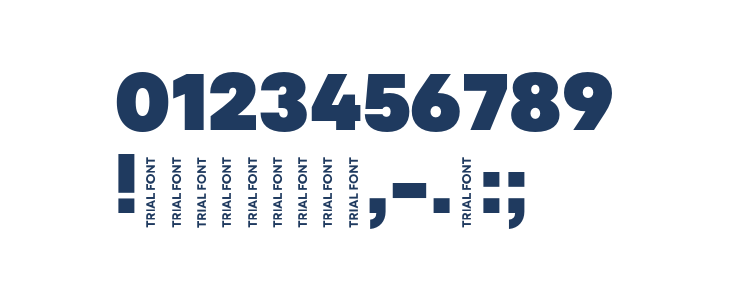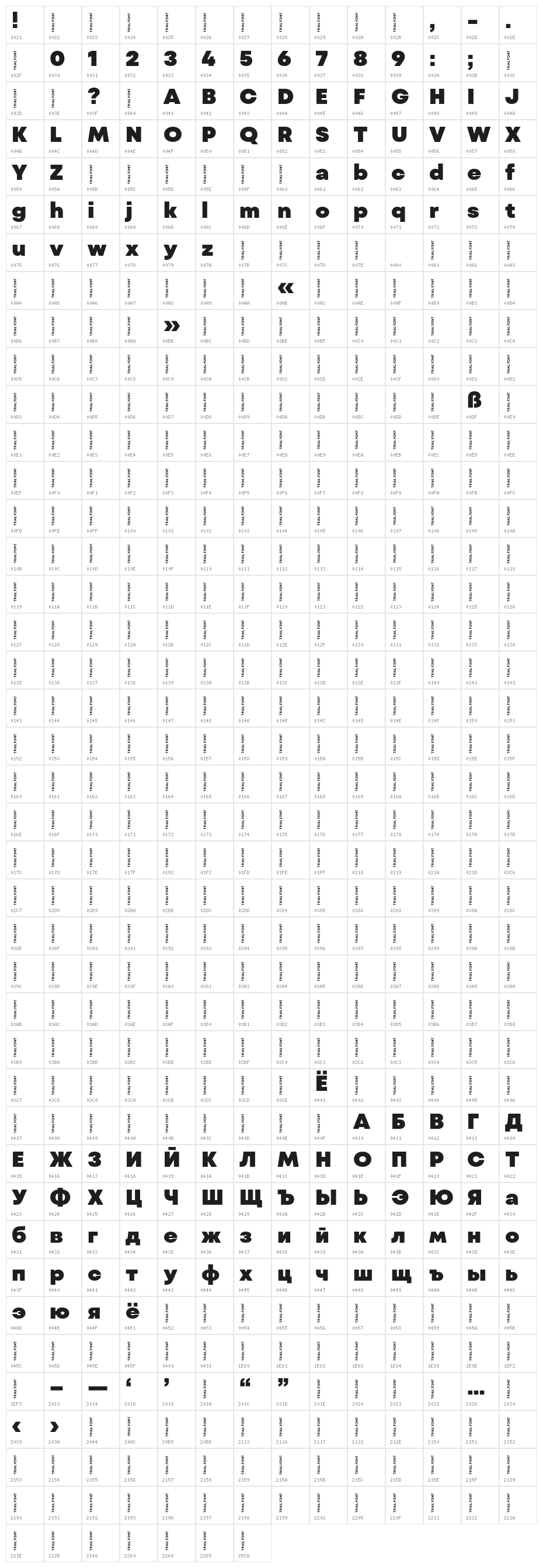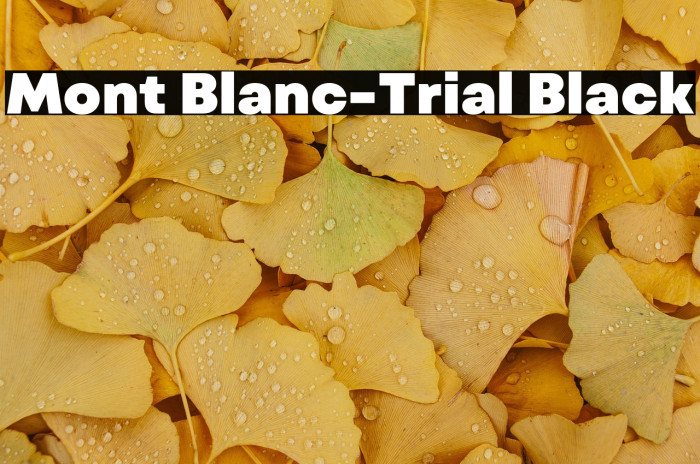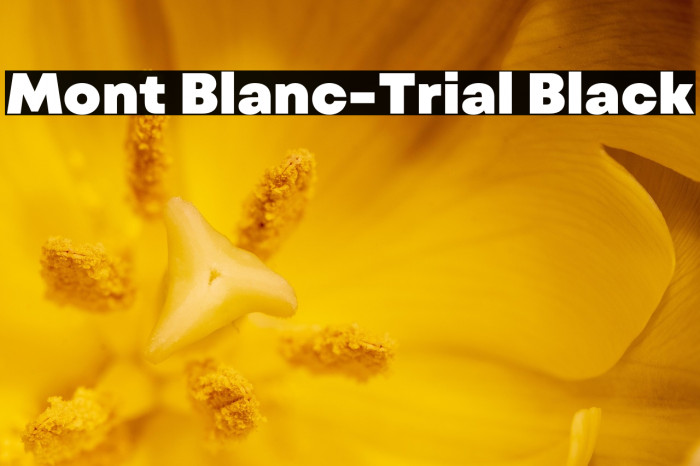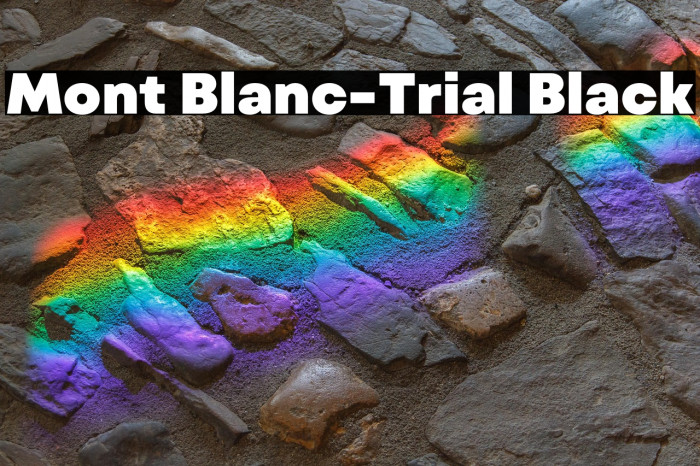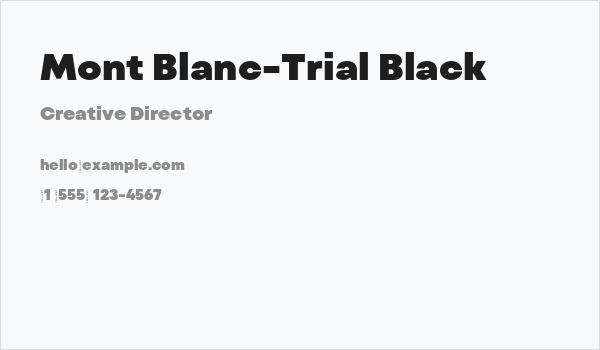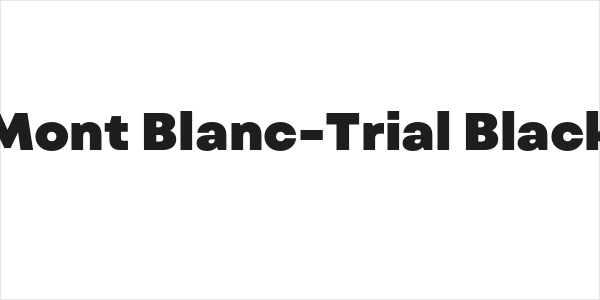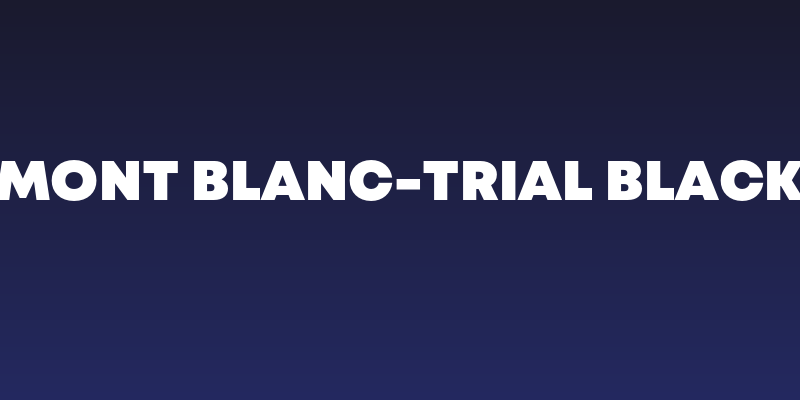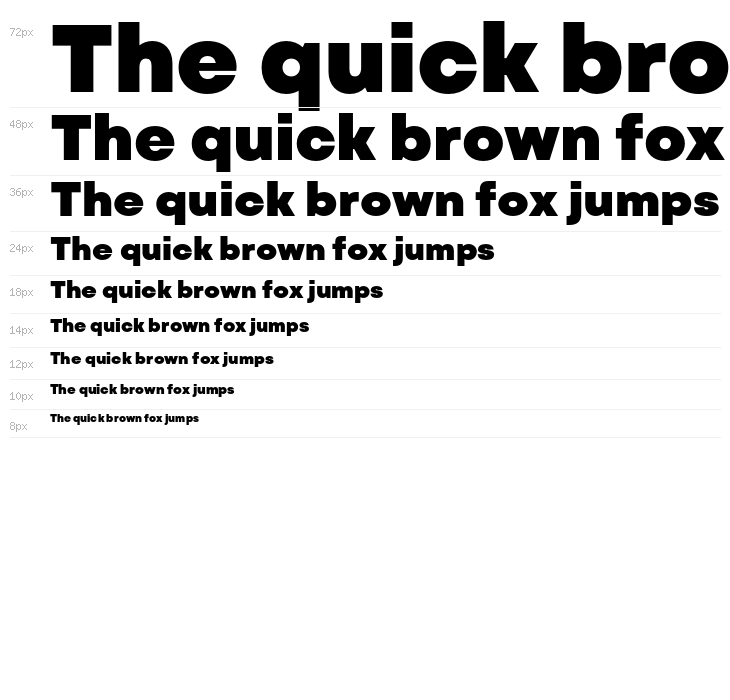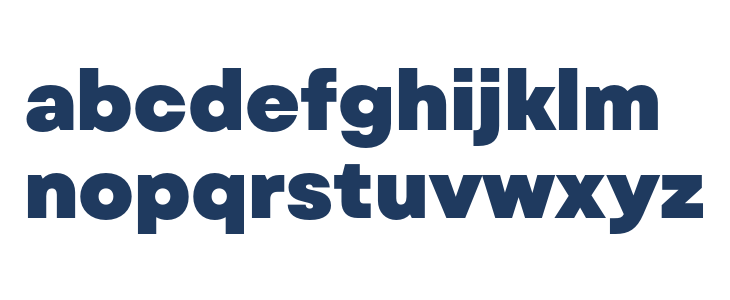
Mont Blanc-Trial Black Font
Mont Blanc-Trial Black Description
This font features a bold and modern sans-serif style with clean, geometric lines and uniform stroke widths. The uppercase and lowercase letters are well-proportioned, offering a strong visual impact. The numerals are clear and easily distinguishable, making them suitable for various applications. Special characters are designed with the same boldness, ensuring consistency throughout the typeface. The overall appearance is sleek and contemporary, making it ideal for projects that require a strong and assertive typographic presence.